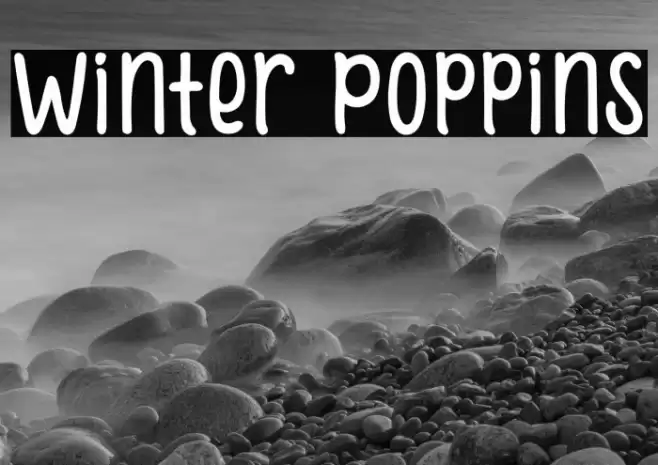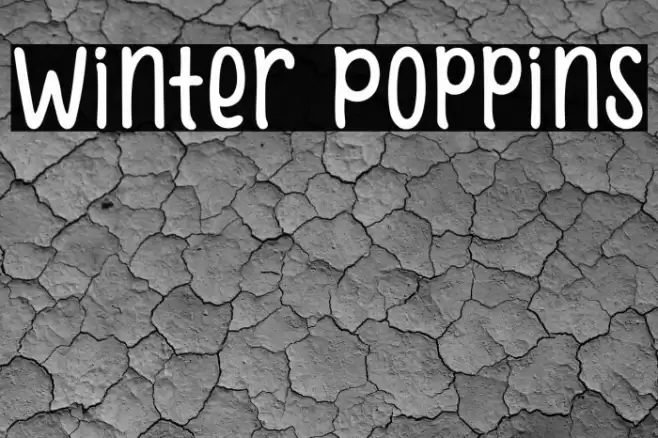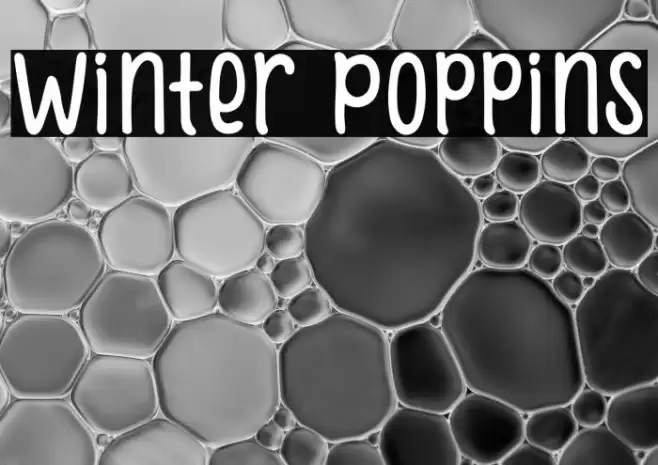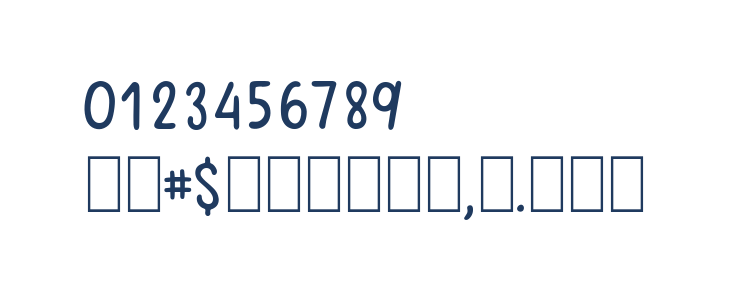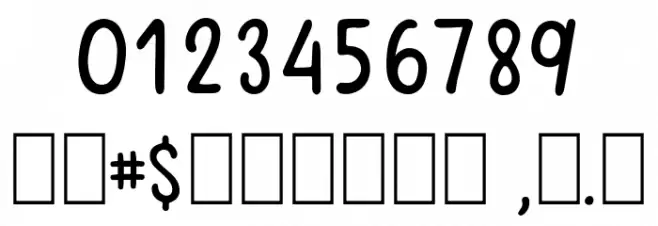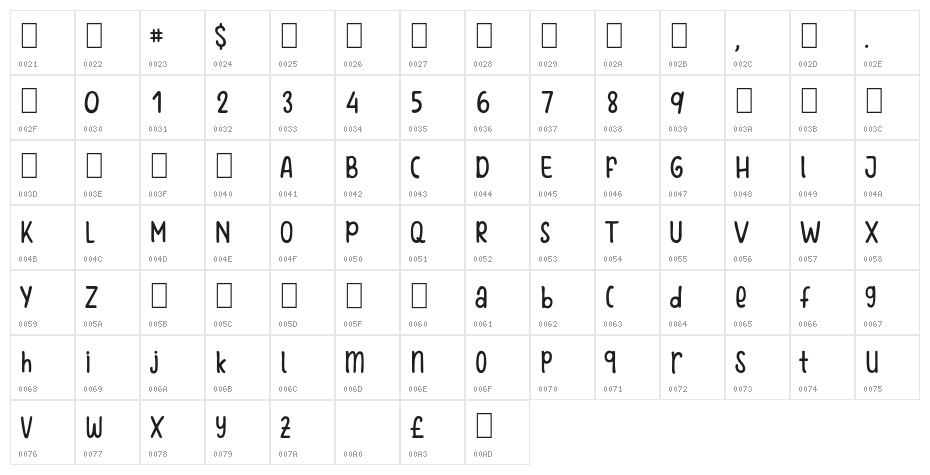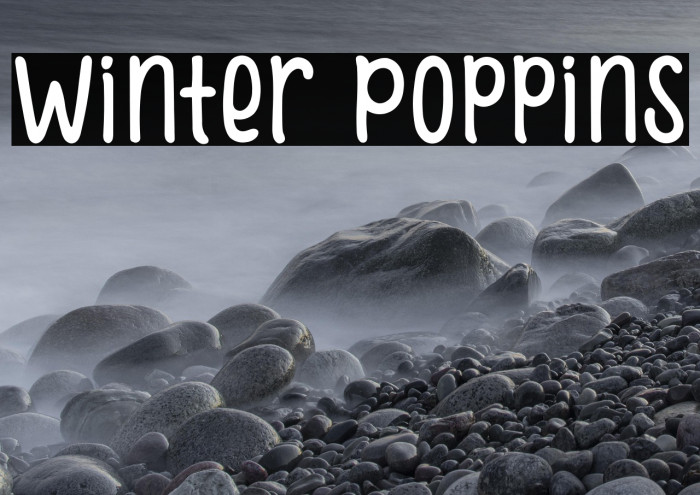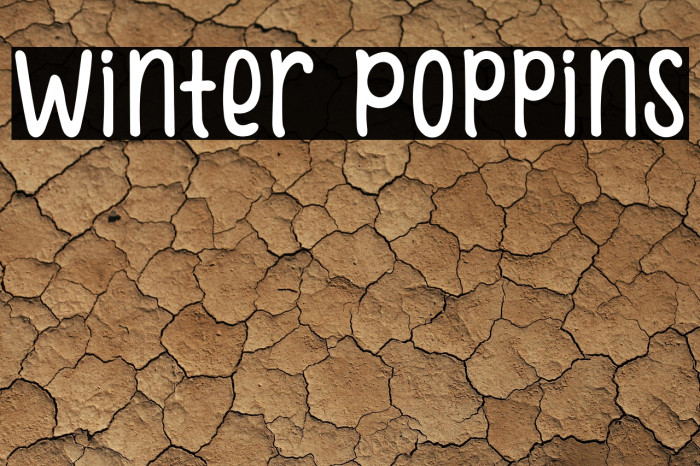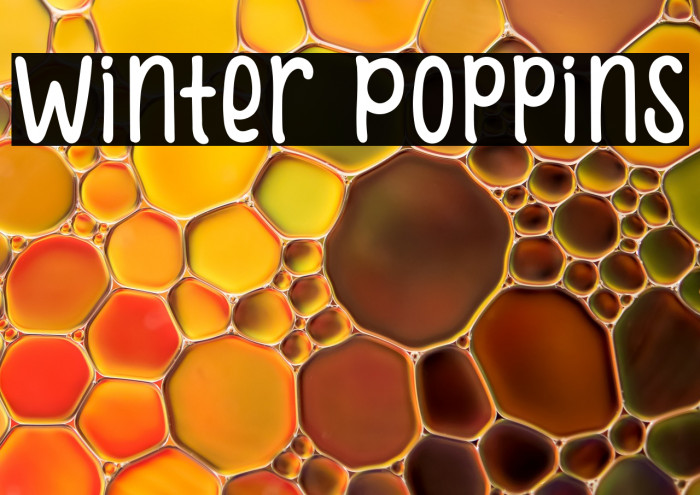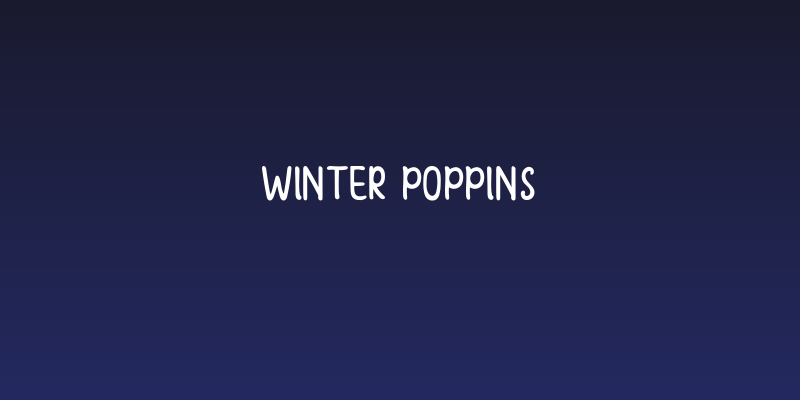
Winter Poppins Font
Winter Poppins Description
This font features a playful and rounded style, characterized by its smooth curves and friendly appearance. The letters are bold and slightly elongated, giving them a whimsical and approachable look. The uppercase and lowercase letters maintain consistent proportions, while the numerals are clear and easily readable. The special characters are designed to match the overall playful aesthetic, making this font suitable for a variety of creative projects. Its unique style is both eye-catching and versatile, ideal for adding a touch of fun to any design.
A playful, rounded font with smooth curves and a friendly appearance from Regular fonts.
- Overall Style: Playful